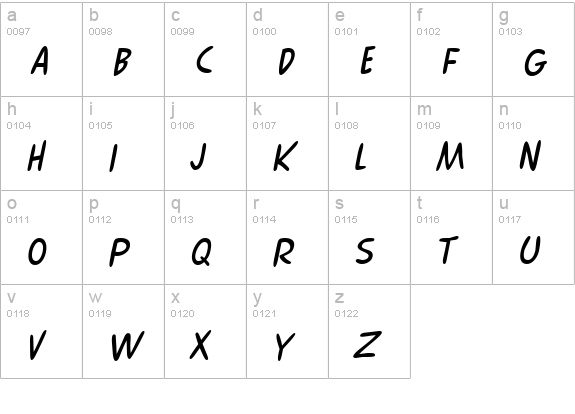
Comix Italic is a distinctive, italic variant in the Comix typeface family \xE2\x80\x94 well suited to design and typography projects.
Comix Italic font is a stylish and dynamic typeface that effortlessly combines the classic elegance of comic book lettering with a modern twist. Its slanted italic design adds a sense of movement and energy to any text, making it perfect for use in graphic novels, posters, and other creative projects. The playful yet sophisticated nature of Comix Italic font is sure to captivate and engage readers, drawing them in with its unique charm. Best of all, Comix Italic font is available for free download at FontsMarket.com. This means that you can easily access and use this eye-catching typeface in your designs without any cost involved. Whether you're a seasoned designer looking to add a fresh element to your work or a newcomer eager to experiment with different fonts, Comix Italic font is a fantastic choice that won't break the bank. Download it today and let your creativity run wild with this versatile and captivating font.